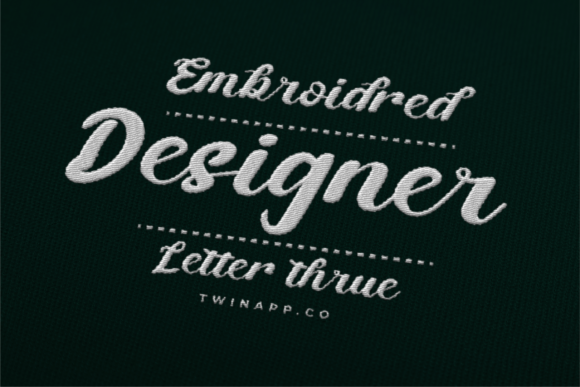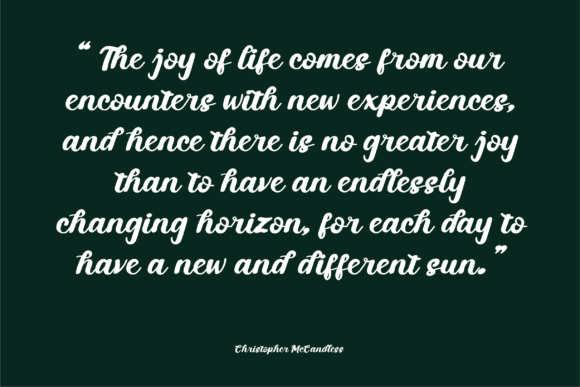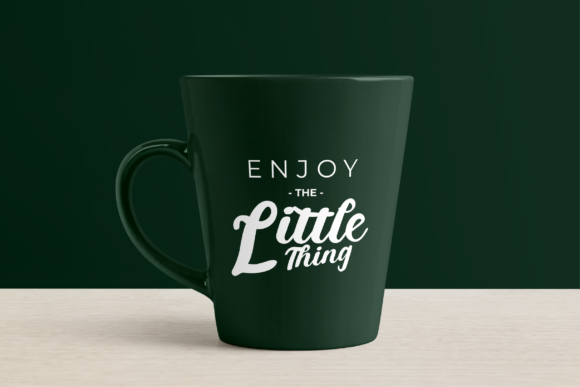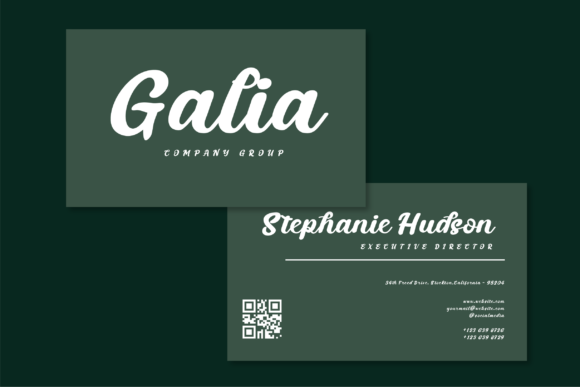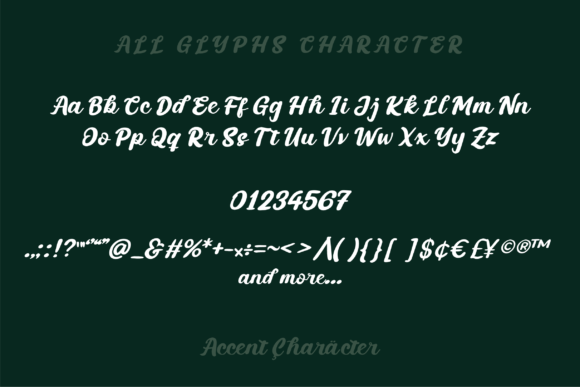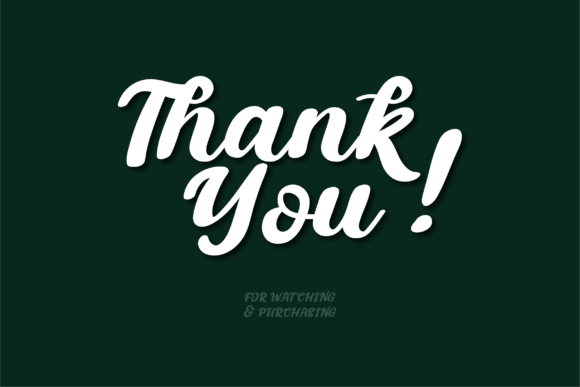
The Fabrik Font: A Designer’s New Best Friend
I’ll never forget the moment I stumbled upon the Fabrik font. I was working on a project for a client who wanted a elegant, yet modern look. I had spent hours scouring the internet for the perfect font, but nothing seemed quite right. That was until I saw Fabrik – its beautiful, flowing lines and classy calligraphic influences immediately caught my eye. I knew right then and there that I had found the one.
So, what makes Fabrik so special? Let’s dive into the good stuff and, of course, a few minor quirks.
• ✨ Exquisite handwritten design that’s perfect for projects that need a touch of elegance
• ✅ Classy calligraphic influences that add a level of sophistication
• 💫 Contemporary and fresh feel that’s perfect for modern designs
• 🎨 Highly versatile and can be used for a wide range of projects, from branding to wedding invitations
While Fabrik is an amazing font, there are a few things to keep in mind:
• 🤔 Some users may find the font a bit too ornate for very casual or playful projects
• ⚠️ As with any script font, it may not be the best choice for very small text sizes or body copy
The Story Behind Fabrik
While the true story behind Fabrik may be a mystery, it’s easy to imagine that it was created by a designer who loves beautiful handwriting and elegant typography. Perhaps they were inspired by the flowing lines of calligraphy, or the sophistication of classic script fonts. Whatever the inspiration, the result is a font that’s both timeless and modern.
Font Name Fabrik Font
Author twinletter
Q: What makes Fabrik so special?
A: Fabrik’s unique blend of classic calligraphic influences and modern design makes it a standout font. Its elegant lines and sophisticated feel make it perfect for projects that need a touch of luxury.
Q: Is Fabrik suitable for body copy?
A: While Fabrik is a beautiful font, it’s best used for headlines, titles, and other display text. Its elegant lines and flowing script may not be suitable for body copy, especially at small text sizes.